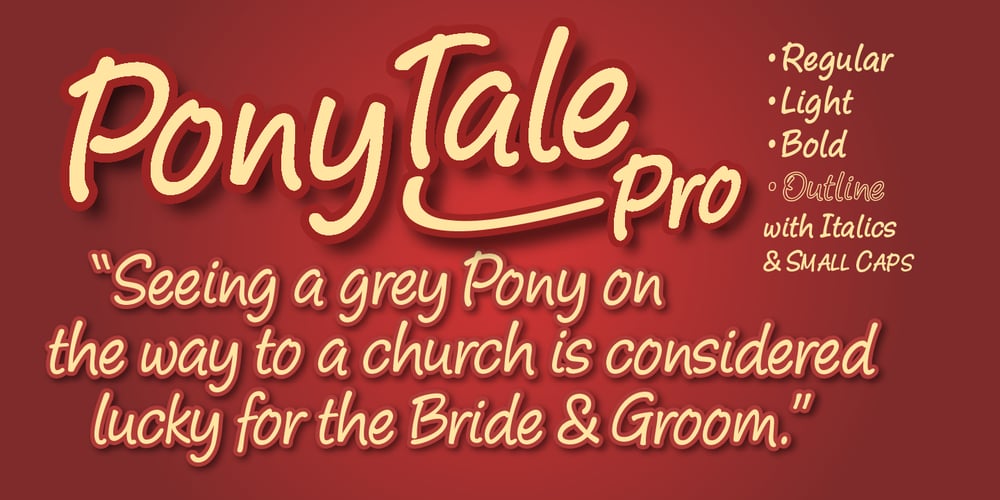
Pony Tale Pro
Pony Tale Pro font
Pony Tale Pro Font Family was designed by John Nahmias and published by Jonahfonts. Pony Tale Pro contains 8 styles and family package options. Pony Tale Pro is a handwritten unconnected script face in eight styles: Light, Regular, Bold and Outline with Italics and Small-Caps. Very suitable for Packaging, Greeting cards, Magazines, Posters and Advertising Ads. A space after any lower-case glyph will produce the word terminal, invoking the OpenType/CONTEXTUAL ALTERNATIVE variant. (Opentype variants may only be accessible via Opentype-Aware applications.)